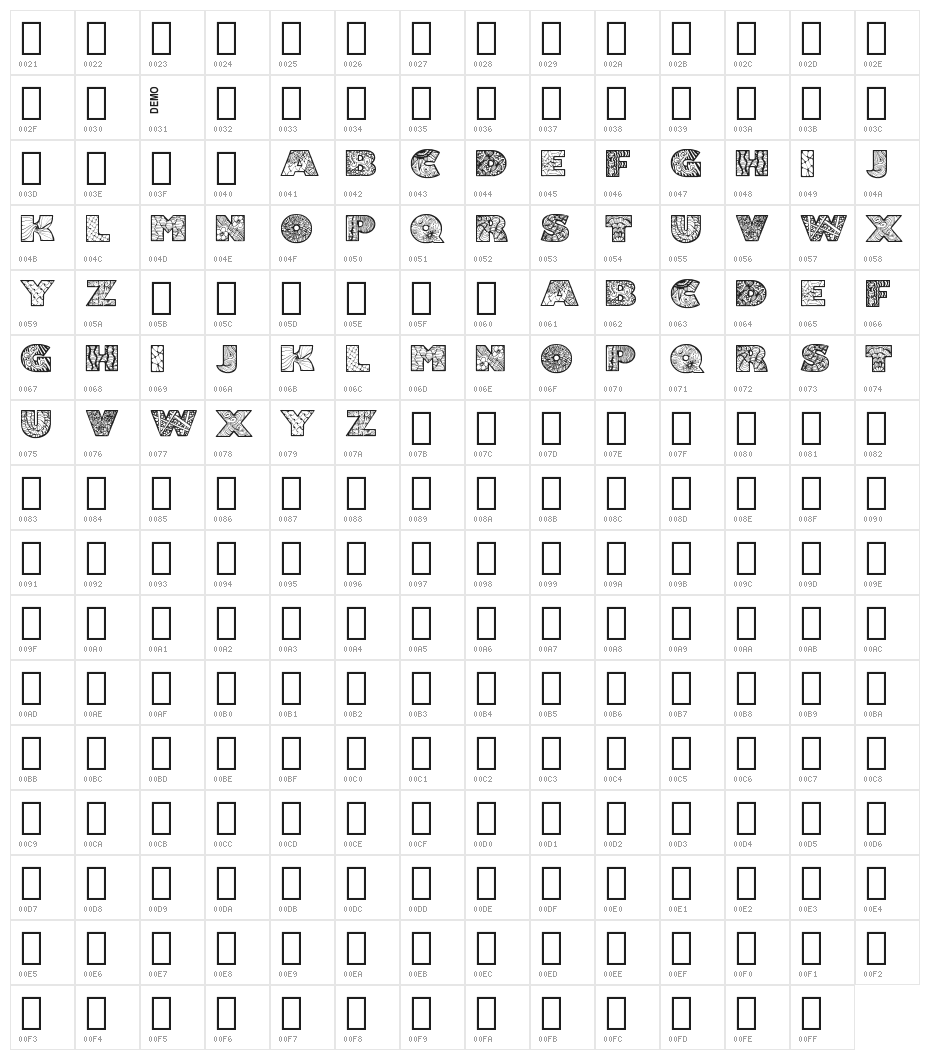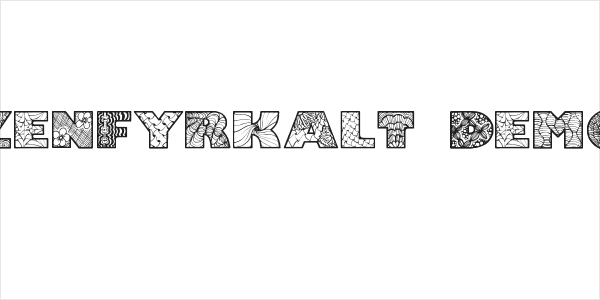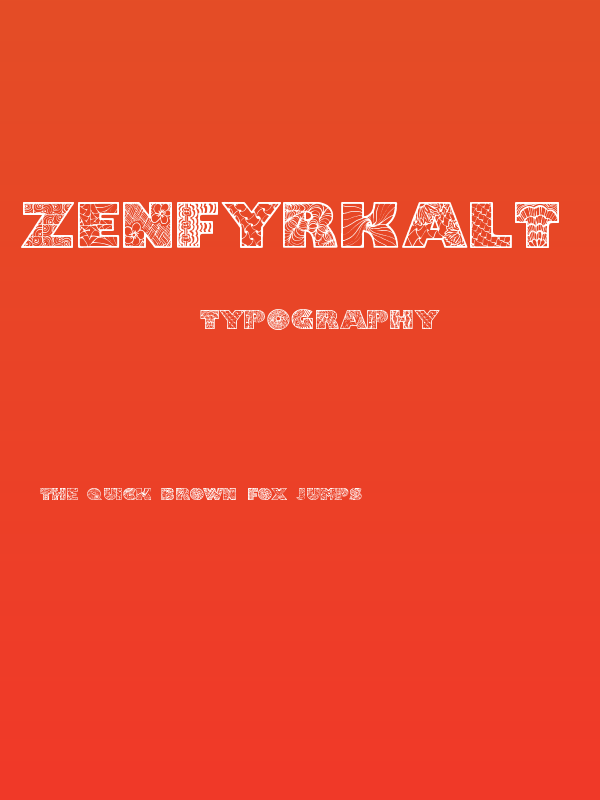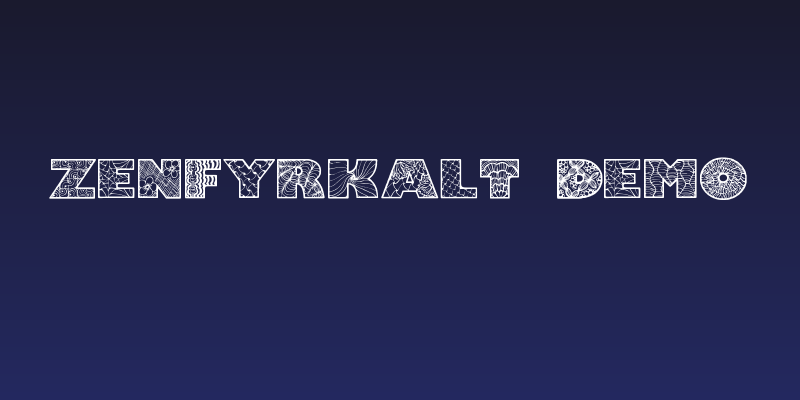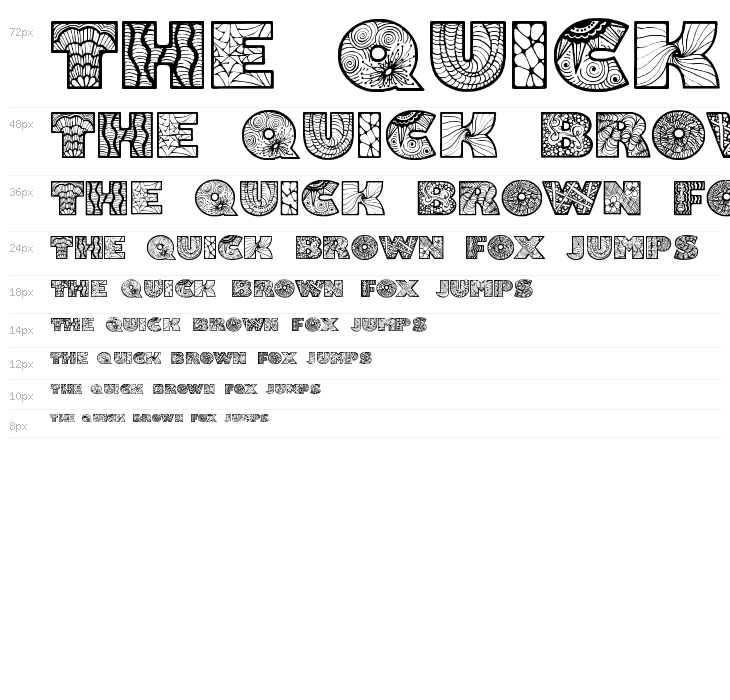
Zenfyrkalt Demo Font
Zenfyrkalt Demo Description
This font features an intricate and decorative style, with each letter filled with unique patterns and textures. The uppercase letters are bold and eye-catching, making them ideal for creative and artistic projects. The design incorporates a variety of motifs, from geometric shapes to organic, flowing lines, giving each character a distinct personality. The font's playful and whimsical nature makes it suitable for projects that require a touch of creativity and flair. Its detailed design is perfect for headlines, posters, and other display purposes where the font can be appreciated up close.
Proposed ProjectsPerfect for posters, artistic designs, branding, and any project needing a decorative touch.